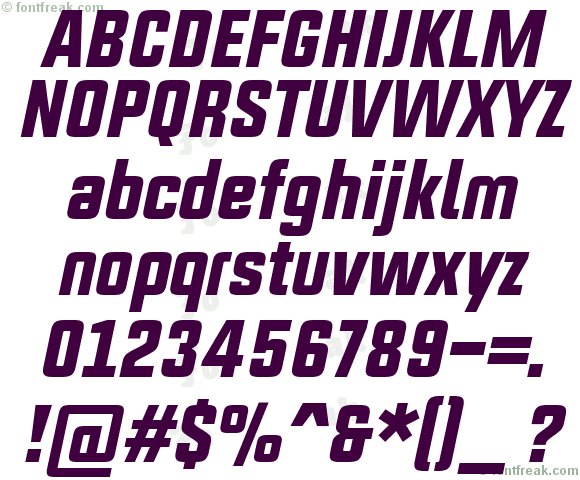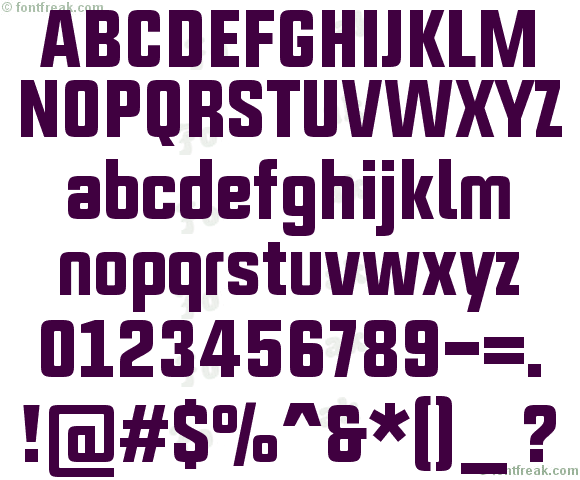
Upbolters New Italic
Upbolters New
Upbolters New Italic, crafted by the talented Situjuh Nazara, is a striking display font that blends contemporary design with a touch of boldness. This font falls into the category of sans-serif, characterized by its clean lines and modern aesthetic. The italic style adds a dynamic flair, making it perfect for projects that require emphasis and a sense of movement. The stroke weight is robust, giving it a strong presence, while the contrast between thick and thin lines enhances its visual appeal. The spacing is well-balanced, ensuring legibility even at larger sizes, making it versatile for various applications.
This font is ideal for a range of creative uses. It shines in wedding invitations where a modern yet elegant look is desired, adding a chic touch to the overall design. Movie posters can benefit from its boldness, capturing attention while conveying the film's energetic vibe. For restaurant menus, Upbolters New Italic can set the tone for a modern dining experience, making dish names pop and inviting patrons to explore. Additionally, small business branding can leverage this font to create memorable logos and promotional materials that stand out in a competitive market.
What sets Upbolters New Italic apart is its unique combination of modernity and readability. The font not only captures attention but also maintains clarity, making it a perfect choice for those looking to make a statement without sacrificing usability. For anyone interested in enhancing their design toolkit, the Upbolters New Italic font free download is an opportunity not to be missed.